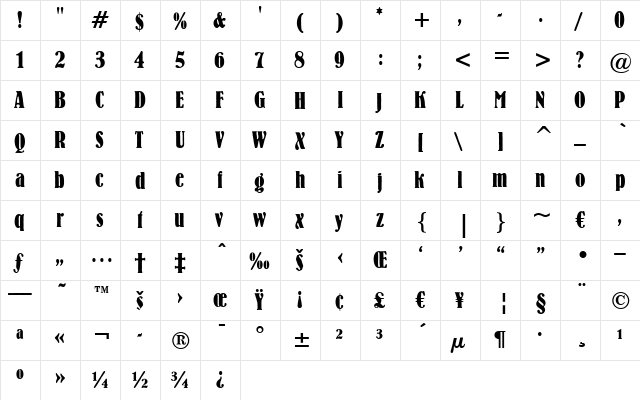
Bernie Regular
Design Context for Bernie Typeface
Bernie offers clean, dependable letterforms without strong stylistic allegiance, making it a practical choice for designers who need flexibility.